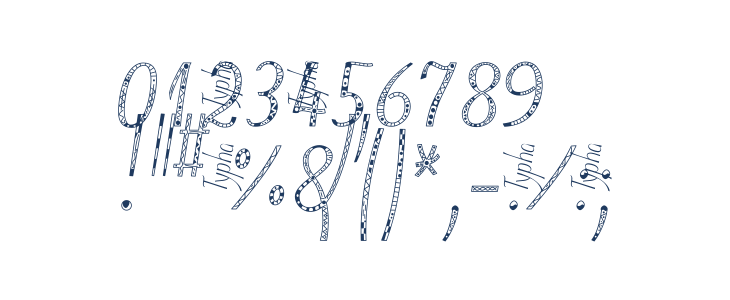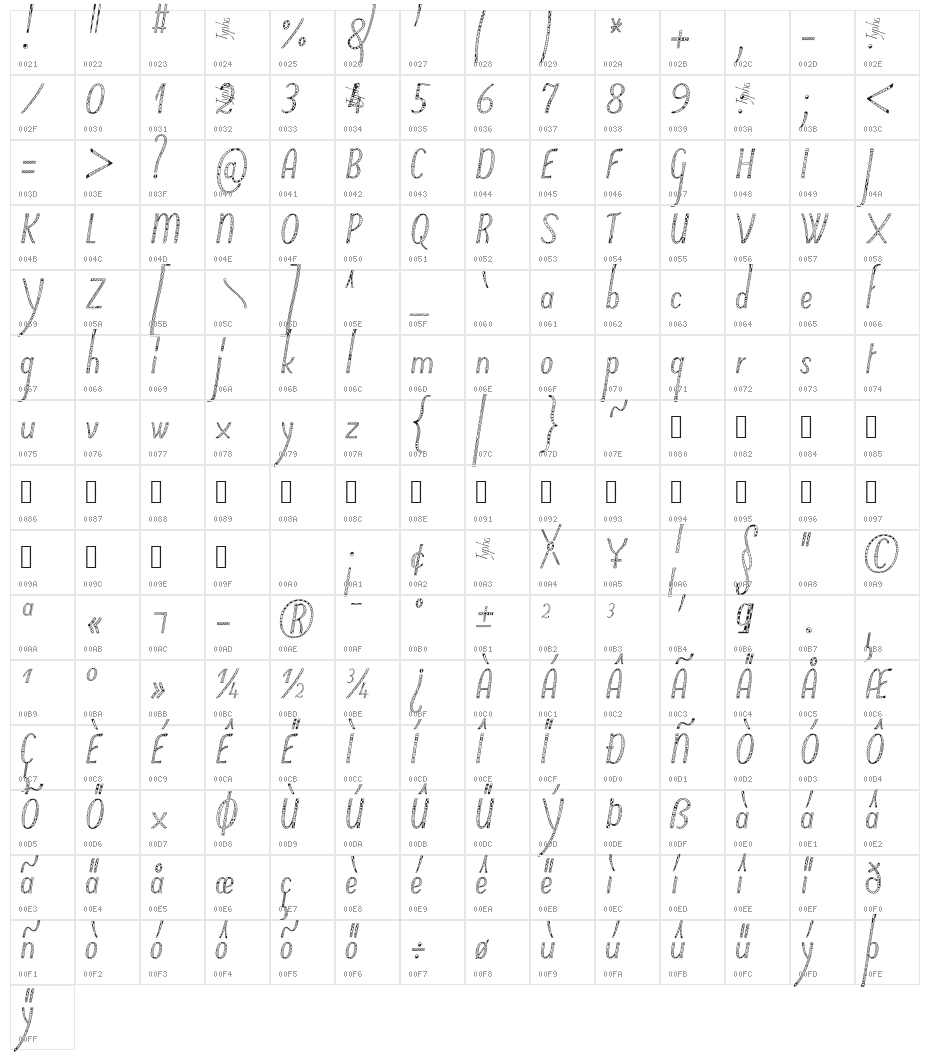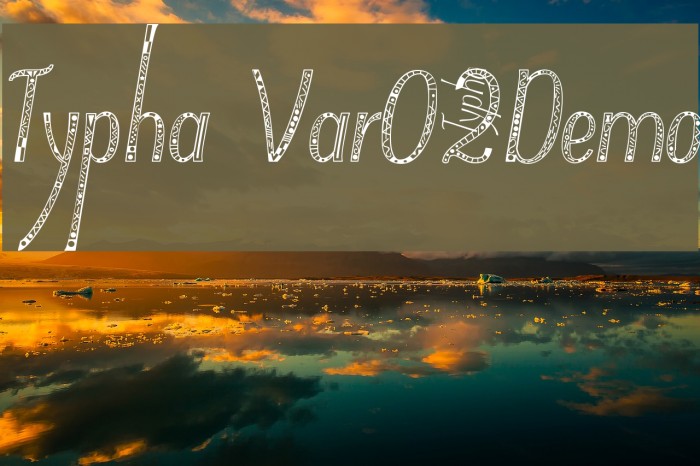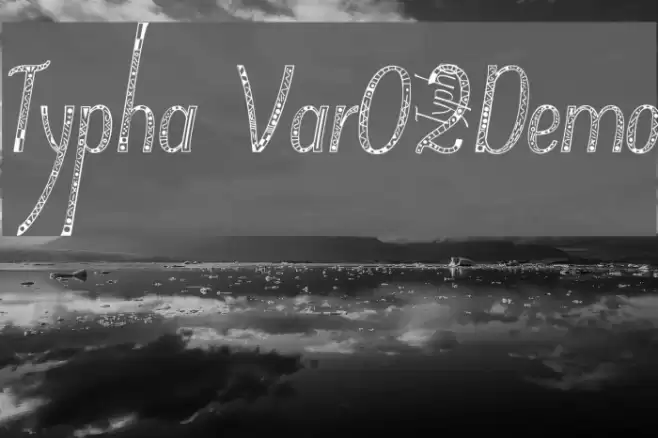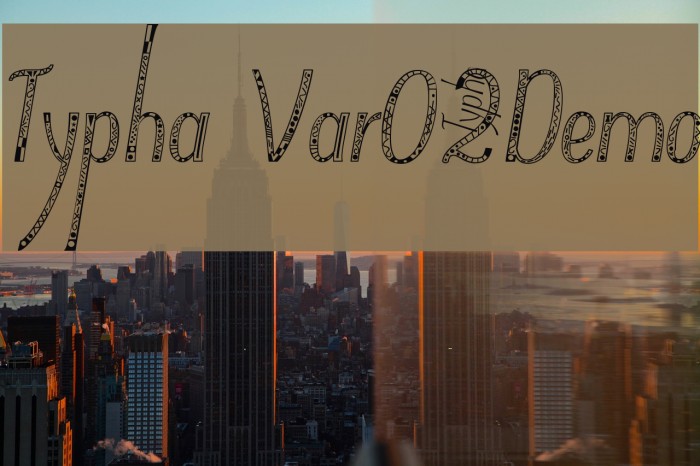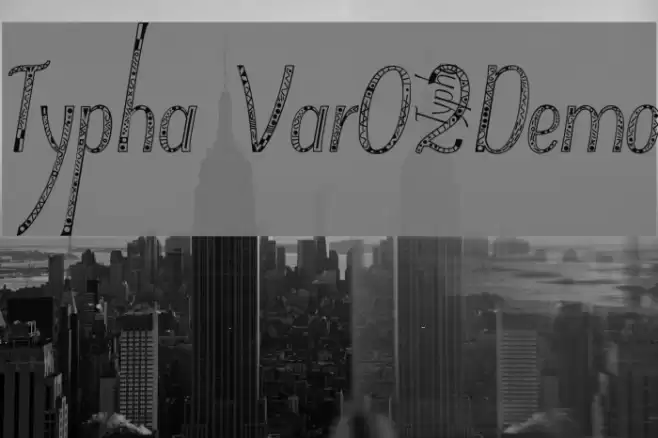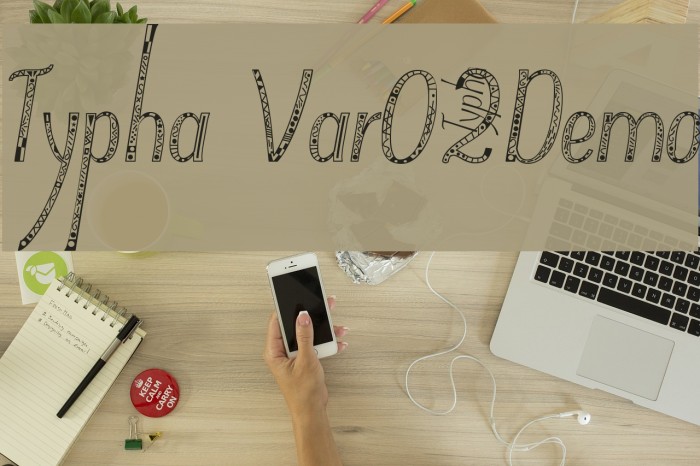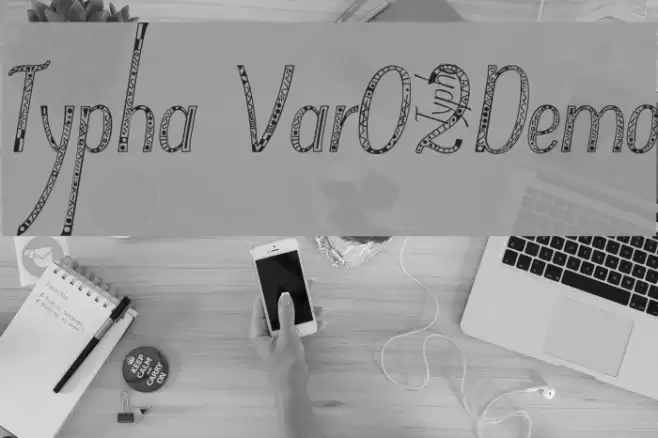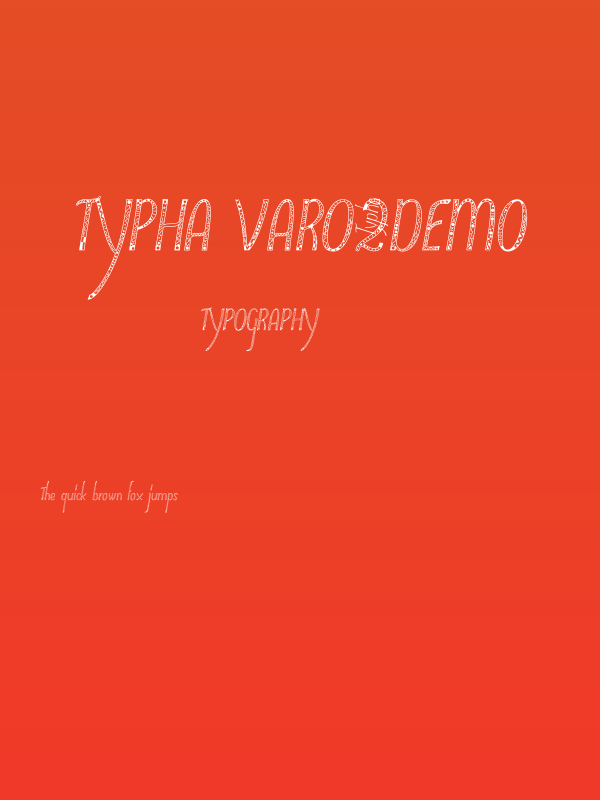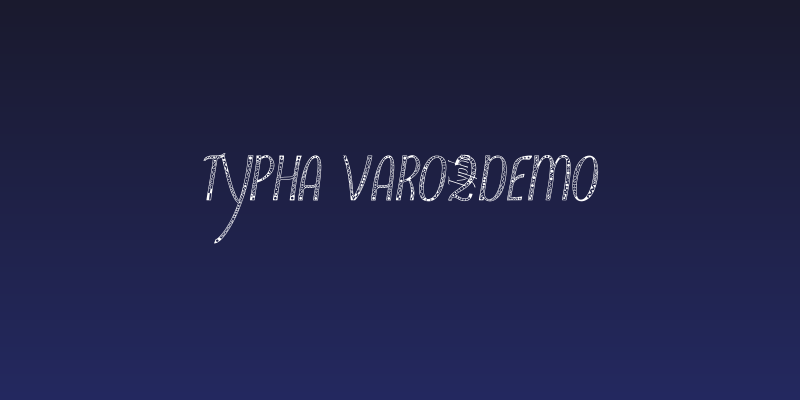
Typha Var02Demo Font
Typha Var02Demo Description
This font features a playful and artistic design, characterized by its unique pattern-filled strokes. Each letter is outlined with a bold line, and the interior is decorated with various geometric patterns, giving it a hand-drawn and whimsical appearance. The uppercase and lowercase letters maintain a consistent style, with elongated forms and a slight slant, adding to its dynamic look. Numbers and special characters follow the same decorative theme, ensuring a cohesive visual experience across all glyphs. This font is ideal for projects that require a creative and eye-catching typeface.
| Proposed Projects | Ideal for children's book covers, creative posters, artistic branding, and playful invitations. |